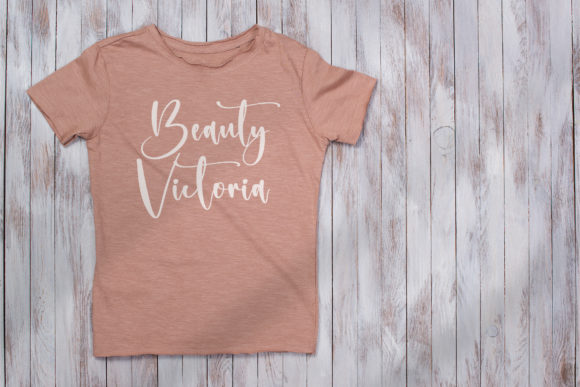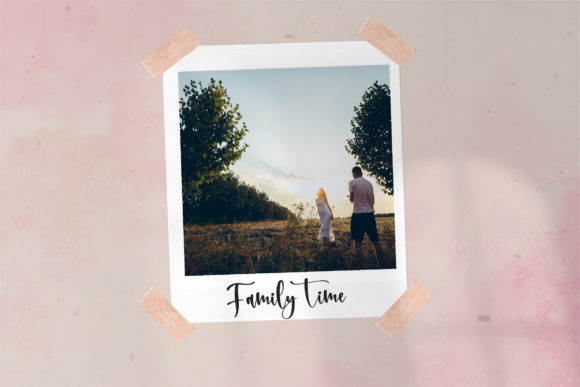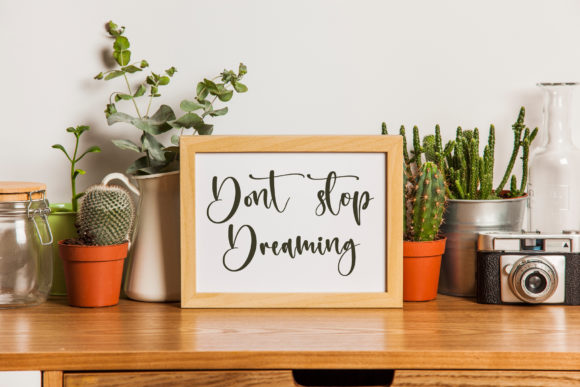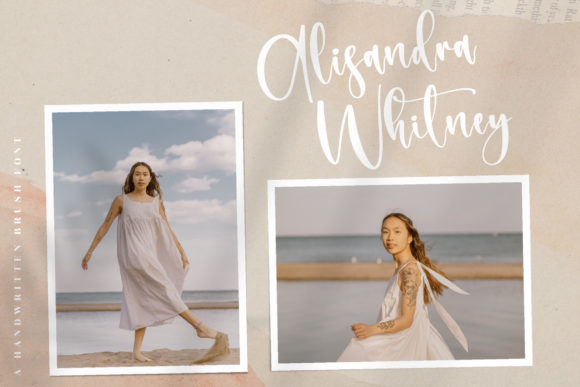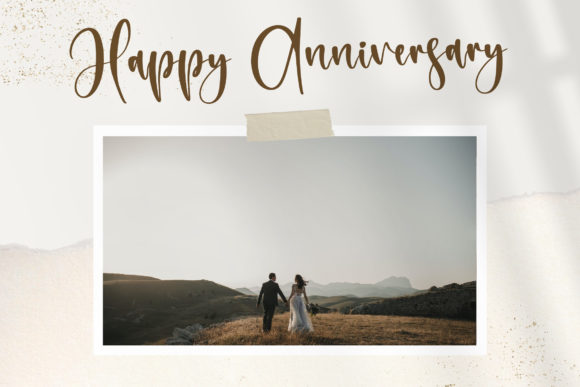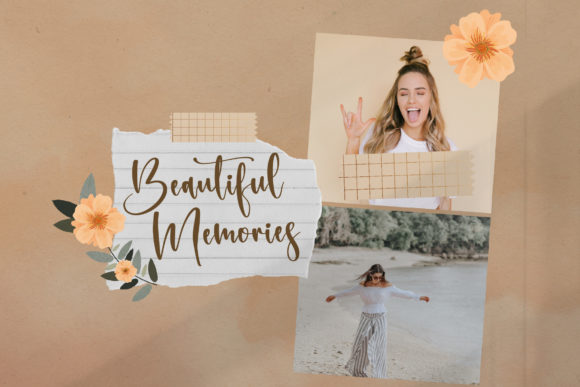
Discover the Timeless Elegance of Beauty Victoria Font
Have you ever found yourself staring at a blank canvas, searching for the perfect font to bring your design to life? That’s exactly where I was when I stumbled upon the Beauty Victoria Font – and it was love at first sight!
Beauty Victoria Font is a beautiful and delicate script font that exudes elegance and class. It was crafted with the intention of providing a refreshing look to designs, and boy, does it deliver! Whether you’re a graphic designer, writer, or artist, this font is sure to add a touch of sophistication to your work.
What makes Beauty Victoria Font truly valuable is its versatility – it’s perfect for a wide range of designs, from wedding invitations to branding materials. With its timeless elegance, it’s sure to leave a lasting impression on your audience.
Beauty Victoria Font Key Features
- Font Style: Script, Calligraphy
- Font Size: 1,000+ glyphs
- Resolution: Supports high-resolution displays (e.g., Retina)
- Unique Characteristics: Elegant, luxurious feel; Perfect for beauty, fashion, and lifestyle brands
- Language Support: Multilingual support for various languages
Beauty Victoria Font Review
As a designer, I was excited to dive into the Beauty Victoria Font, but my expectations were mixed. Let’s break down what works well and what doesn’t.
- Beautifully Cursive Script: The font has a lovely, flowing script that’s perfect for titles and headings.
- High-Quality Glyphs: The glyphs are well-designed, with smooth lines and elegant curves.
- Support for Multiple Languages: The font includes support for multiple languages, making it a great option for international projects.
- Limited Font Weights: The font is limited to a single weight, which can make it difficult to use in complex designs.
- No Italic or Bold Variants: The font lacks italic and bold variants, which can make it harder to create visually appealing text.
- Some Characters May Not Display Correctly: I noticed some characters, such as the ampersand (&), didn’t display correctly in certain fonts.
Overall, I think the Beauty Victoria Font has some great qualities, but its limitations hold it back from being a top-tier font. With some additional weights and variants, it could be a great option for designers looking for a beautiful script font.
The Beauty Victoria Font is ideal for:
- Beauty and wellness branding
- Fashion and lifestyle design
- Wedding and event invitations
- Print and digital advertising
For optimal results, use the Beauty Victoria Font in conjunction with elegant
Alternatives to Beauty Victoria Font
The Great Vibes Font is a beautiful, elegant script font that is perfect for creating a luxurious and sophisticated look. It is ideal for use in branding, invitations, and other high-end designs where a touch of class is required. In comparison to Beauty Victoria Font, Great Vibes Font has a more refined and polished feel, making it a great choice for designers who want to add a sense of luxury to their designs.
The Pacifico Font is a modern, elegant script font that is perfect for creating a relaxed and sophisticated look. It is ideal for use in branding, packaging, and other designs where a sense of calmness is required. Compared to Beauty Victoria Font, Pacifico Font has a more laid-back and casual feel, making it a great choice for designers who want to add a sense of serenity to their designs.
The Carolyna Pro Font is a elegant, modern script font that is perfect for creating a sophisticated and stylish look. It is ideal for use in branding, advertising, and other designs where a touch of glamour is required. Compared to Beauty Victoria Font, Carolyna Pro Font has a more refined and modern feel, making it a great choice for designers who want to add a sense of sophistication to their designs.
What is the recommended font size and line height for the Beauty Victoria Font?
The recommended font size for the Beauty Victoria Font is between 12-24 points, with a line height of 1.2-1.5 times the font size. This will ensure that the text is readable and visually appealing. You can adjust these settings to suit your specific design needs.